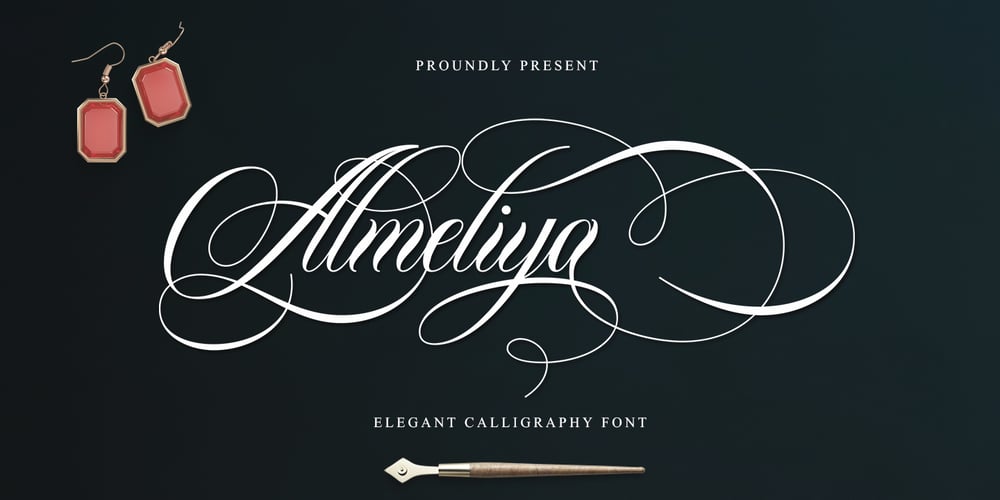
Almeliya Font Family was designed by Ikhsan Maulana and published by George Studio. Almeliya contains 1 styles and family package options. Almeliya Script is a calligraphy script font that comes with a beautiful alternative character. a mixture of copper calligraphy with a handleting style. Designed for an elegant style. Almeliya Script attracts soft, clean, feminine, sensual, glamorous, simple and very easy to read fonts. The classic style is very suitable to be applied in various formal forms such as invitations, labels, menus, logos, fashion, make up, stationery, letterpress, romantic novels, magazines, books, greeting / wedding cards, packaging, labels.Almeliya Script has 600 glyphs. includes multiple language support. With OpenType features with alternative styles, ligatures and characters, it allows you to mix and match pairs of letters to suit your designs, as well as a touch of ornamentation to make this font look elegant.Thanks You So Much.